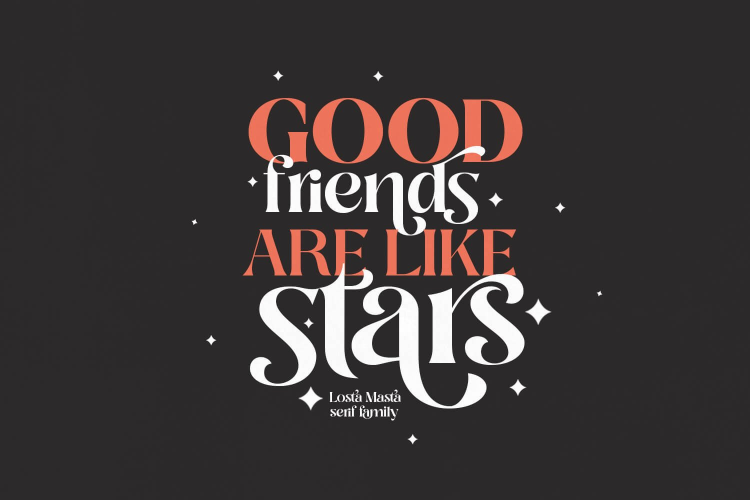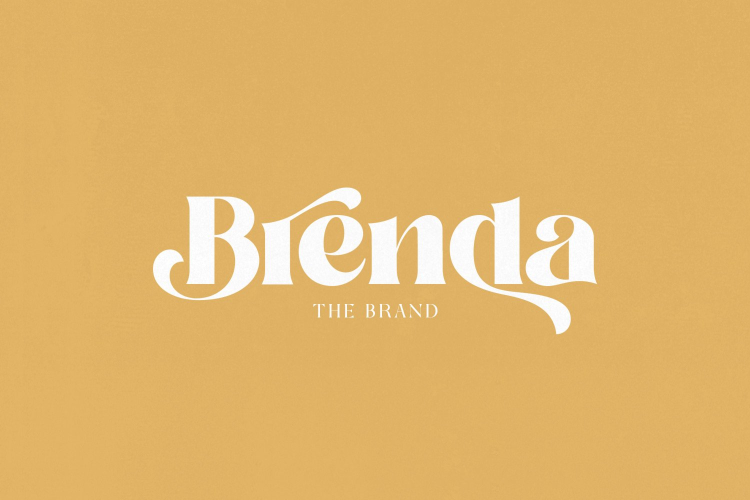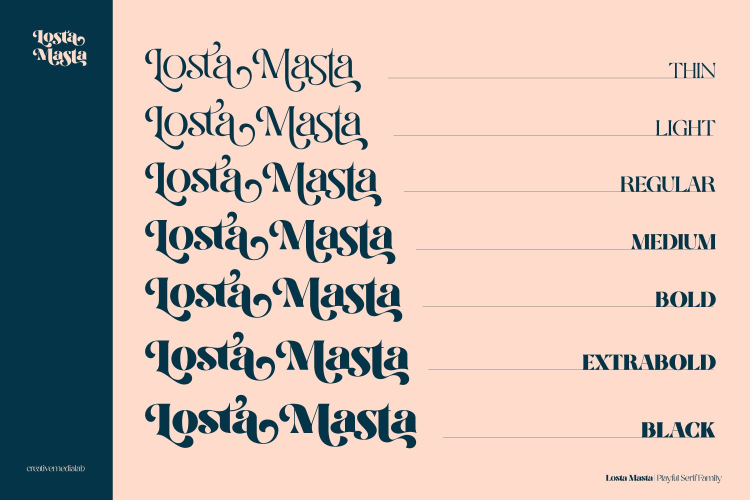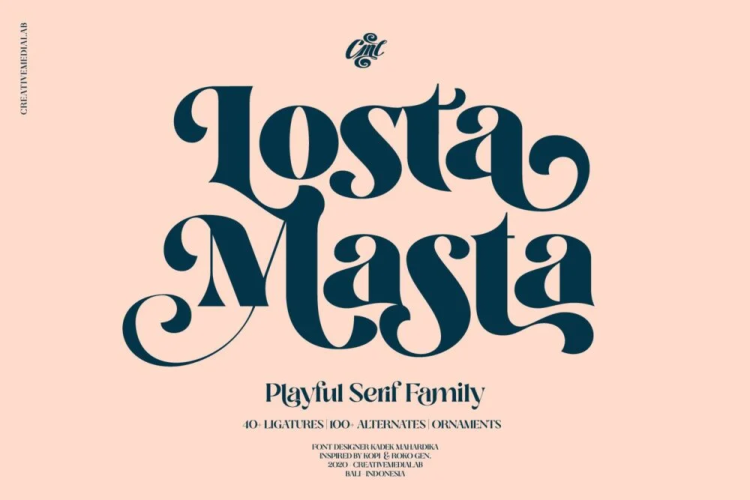
Losta Masta Font
Losta Masta Font fun and playful serif family. This font is suitable for many design forms, such as magazines, postcards, logos, DIY Projects, invitation cards, quotes,…
Losta Masta Font fun and playful serif family. This font is suitable for many design forms, such as magazines, postcards, logos, DIY Projects, invitation cards, quotes, vintage look design, an old classic, the 60s, 70s, 80s, wedding projects, and much more.
Where Losta Masta Font works best
Losta Masta Font is built for size: event posters, hero headlines and billboard-style layouts.
High contrast display type like Losta Masta Font reads instantly in thumbnails and motion graphics.
What is Losta Masta Font good for?
Losta Masta Font is a Display Fonts typeface tagged Branding, Classic, Display, Display Fonts. It works well for headlines, logos, posters, social media graphics and branding projects that need a distinctive display fonts look.